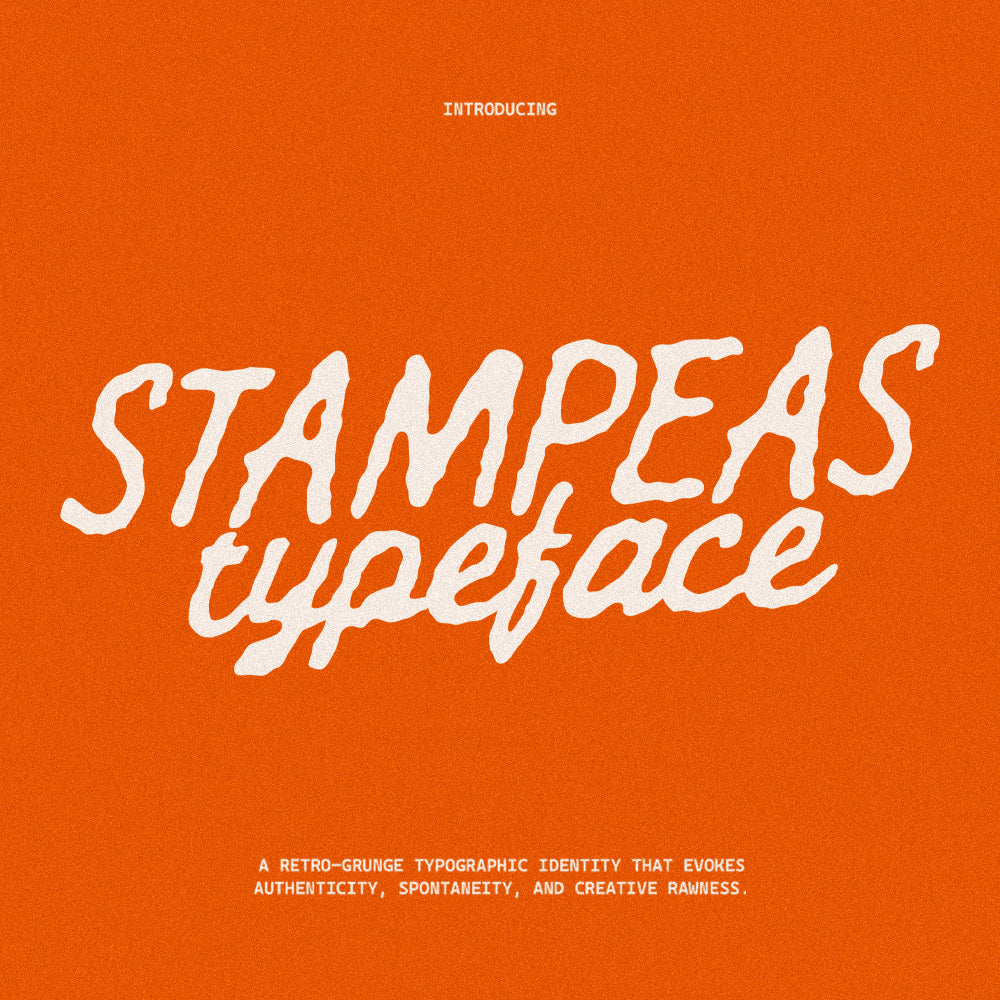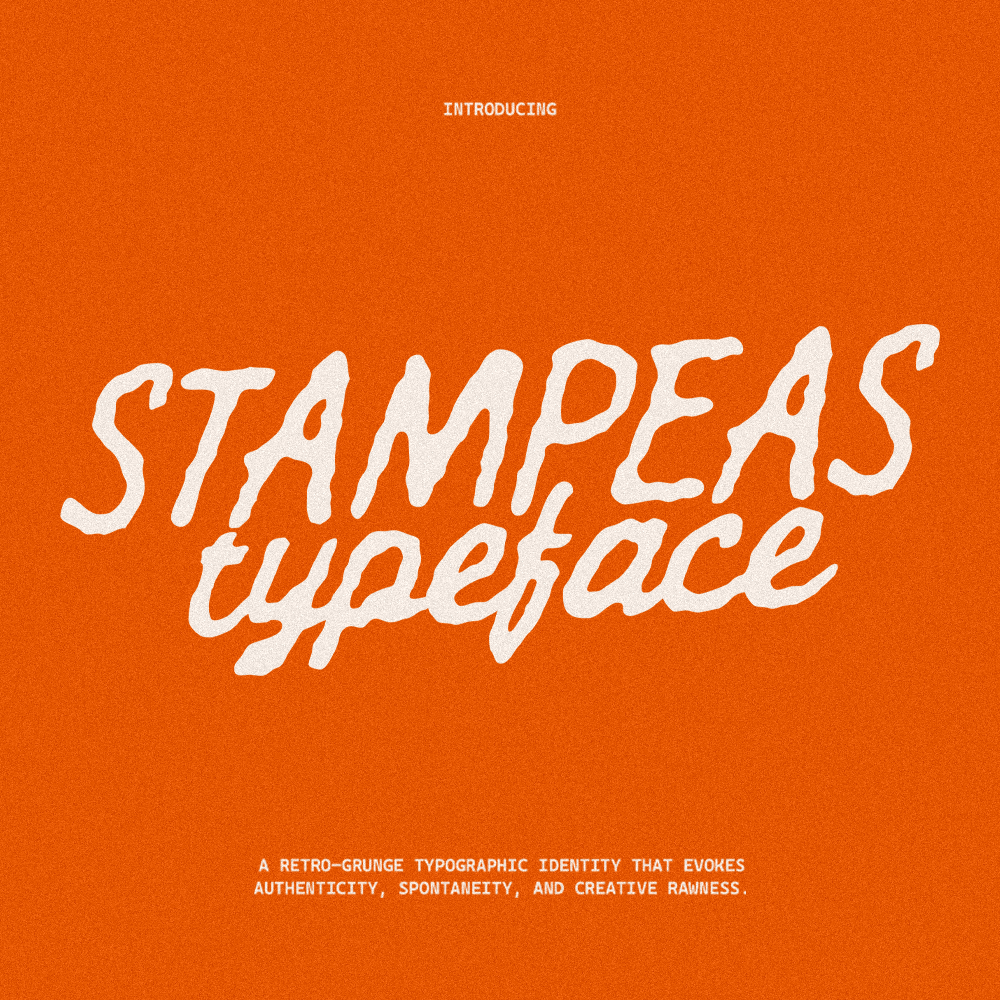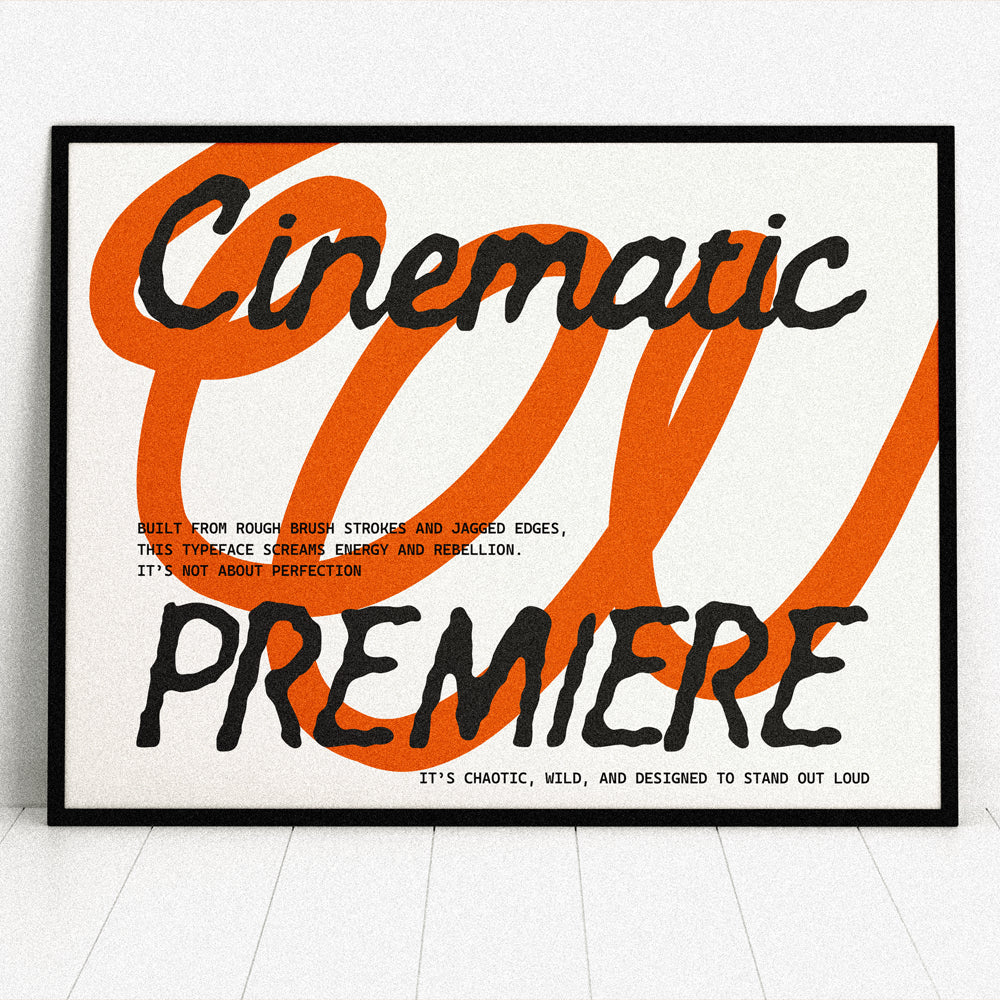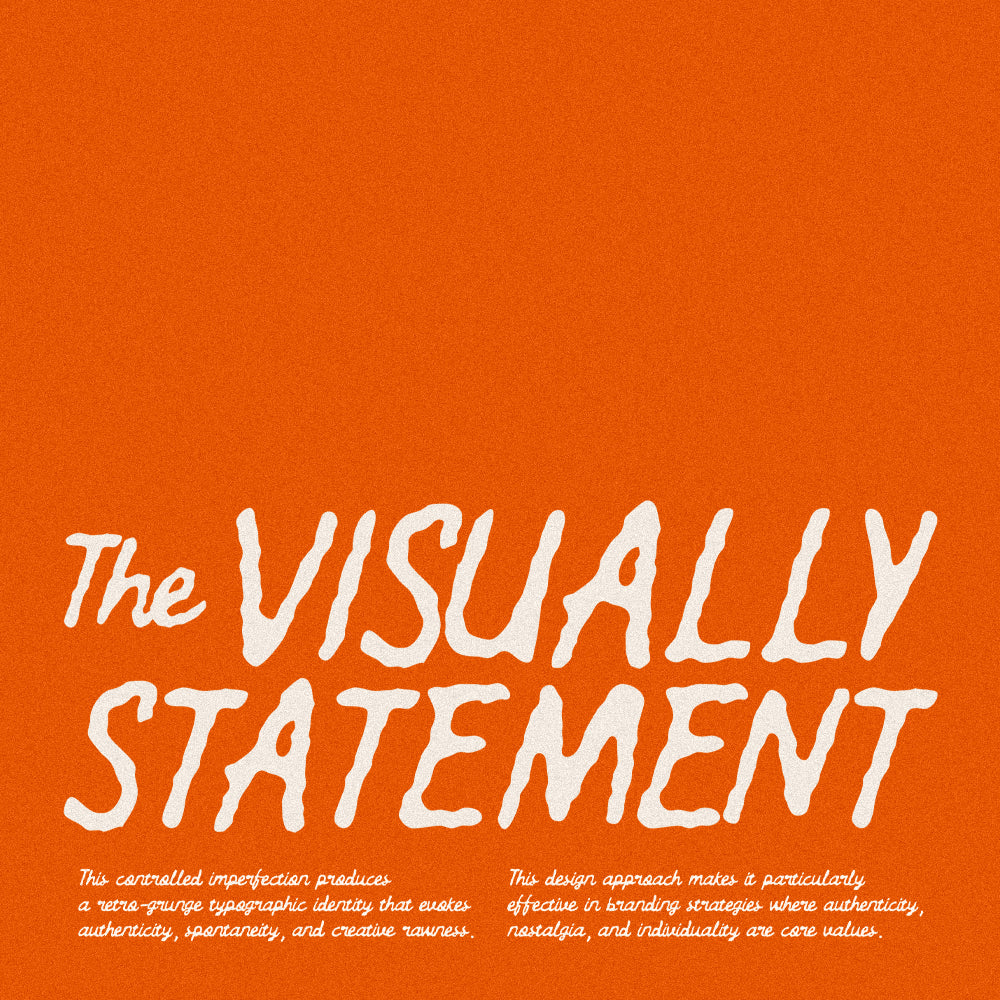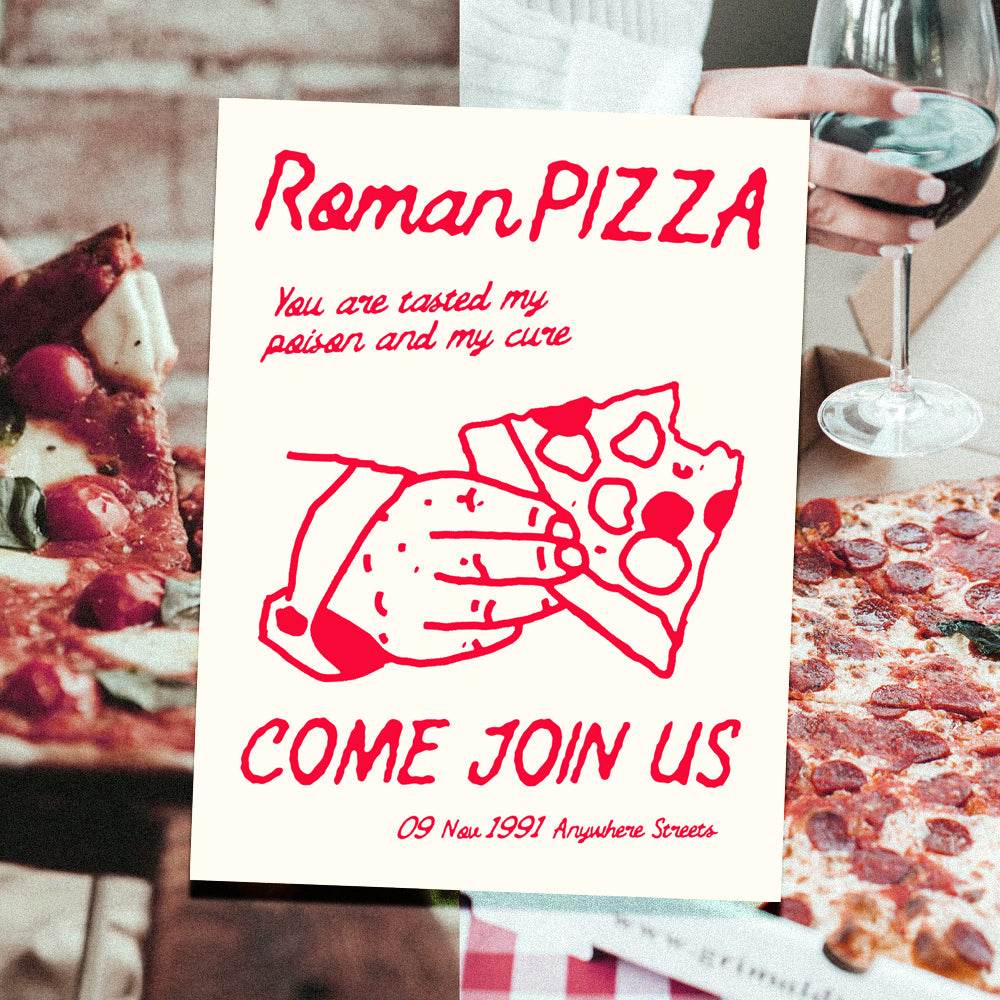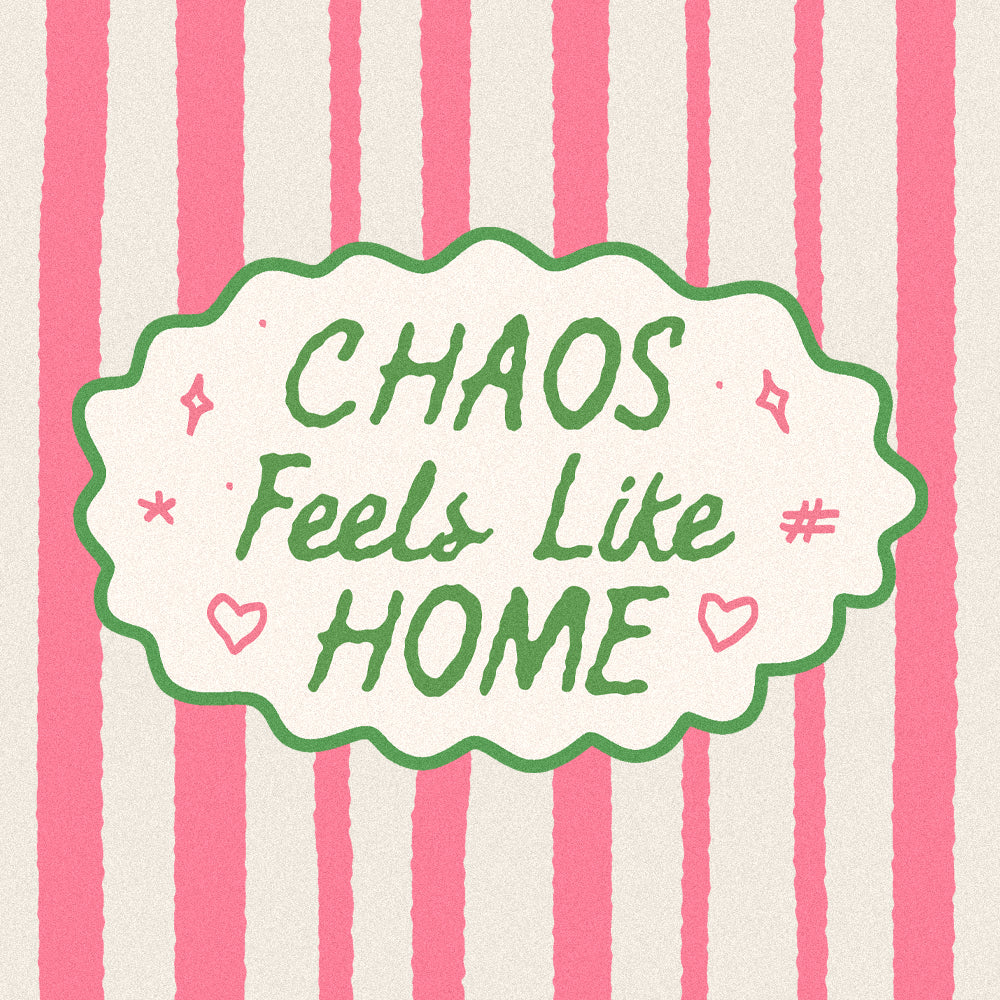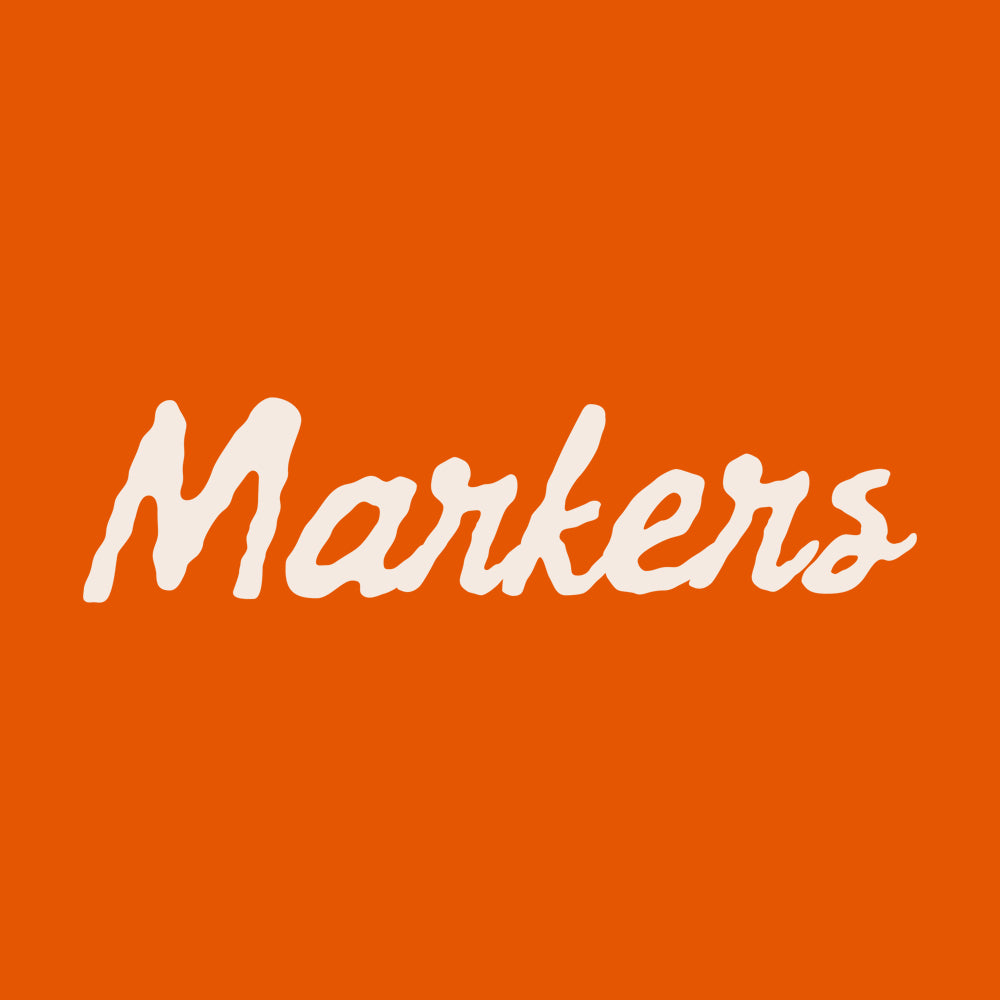
Stampeas - Brush Script Font
Stampeas is a handcrafted display font that features uneven strokes and a natural flow, inspired by the look of ink-stamped lettering. It offers a retro vibe with an organic personality, suitable for a variety of design projects.